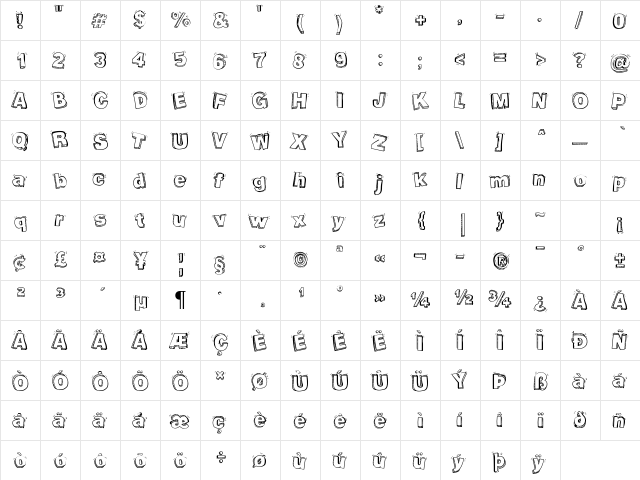
Packaging Funny Regular
Design Context for Packaging Funny Typeface
Packaging Funny trades formality for fun, with bouncy, characterful letterforms that bring warmth and energy to any project.
Font Pairing: Pairs well with a rounded or humanist sans for body copy, maintaining the friendly tone without relying on Packaging Funny to carry extended reading.
Pro Tip: Avoid using Packaging Funny for long passages of text — it works best for headlines, labels, and short calls to action.